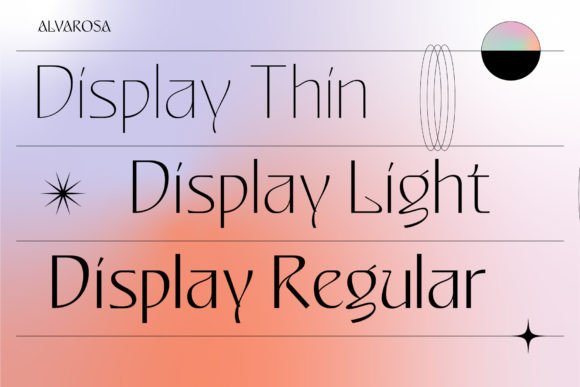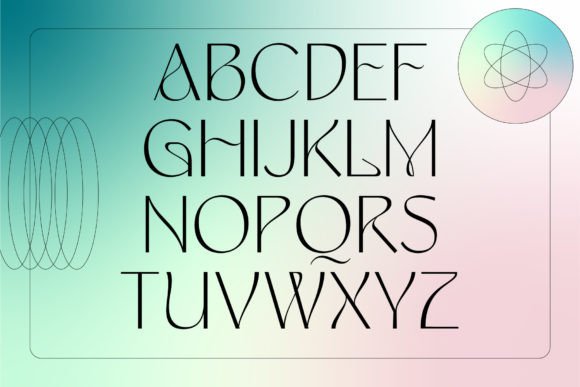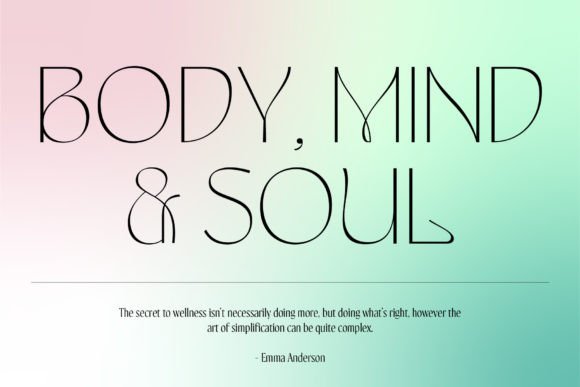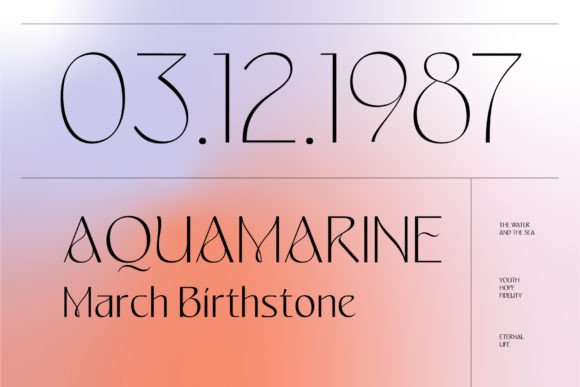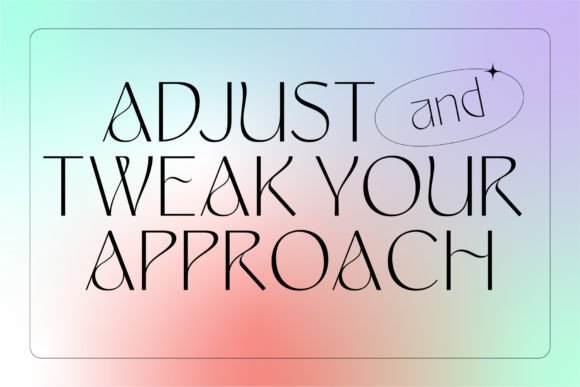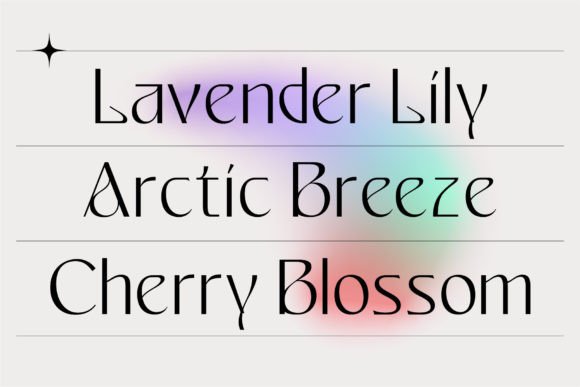
Have you ever scrolled through social media and stumbled upon a beautifully designed logo or typography that instantly caught your eye? For many designers, this moment is a spark that ignites a wave of inspiration, and for us, it’s the perfect opportunity to introduce you to the stunning Alvarosa Font.
This elegant display font is designed to make a statement, with its sleek, minimalist look and quirky elements that add a touch of personality to any design. Whether you’re working on a logo, wedding invitation, or poster, Alvarosa Font is the perfect addition to elevate your creative project. Its versatility and readability make it a valuable asset for designers, and we can’t wait to explore its possibilities with you.
- Font Family: Alvarosa Font is a modern sans-serif font family designed for various digital and print applications.
- Size: The font family includes 12 styles ranging from Thin to Extra Bold, providing flexibility for various design requirements.
- Unique Characteristics: Alvarosa Font features a unique blend of clean lines, geometric shapes, and subtle rounded edges, making it suitable for modern branding, digital interfaces, and editorial content.
- Unique and elegant design: Alvarosa Font has a distinct, sophisticated look that’s perfect for creative projects.
- High-quality glyphs: The font features crisp, well-defined characters that make it easy to read.
- Limited font weights: Alvarosa Font comes in a limited range of weights, which may not be suitable for all design projects.
- No italic or oblique styles: While the font’s elegant design is a major strength, the lack of italic or oblique styles can be a limitation for certain projects.
Overall, I’m impressed with the Alvarosa Font’s unique design and high-quality glyphs. However, the limited font weights and lack of italic or oblique styles are notable limitations. If you’re looking for a sophisticated font for creative projects, Alvarosa Font is definitely worth considering. Just be aware of its limitations and plan accordingly.
Alvarosa Font is a beautiful, elegant font. However, there are several alternatives that designers can use depending on their specific needs and preferences.
P22 Alura
P22 Alura is a modern, elegant font that is similar to Alvarosa Font. It has a similar feel and style, but with a more refined and sophisticated look. Use P22 Alura when you want a font that exudes luxury and sophistication.
Comparison to Alvarosa Font: P22 Alura has a more refined and sophisticated look, making it ideal for high-end designs and luxury branding.
Bellissima Script
Bellissima Script is a beautiful, elegant script font that is perfect for designers who want a font with a touch of romance and sophistication. It has a flowing, cursive style that is similar to Alvarosa Font, but with a more feminine and elegant touch.